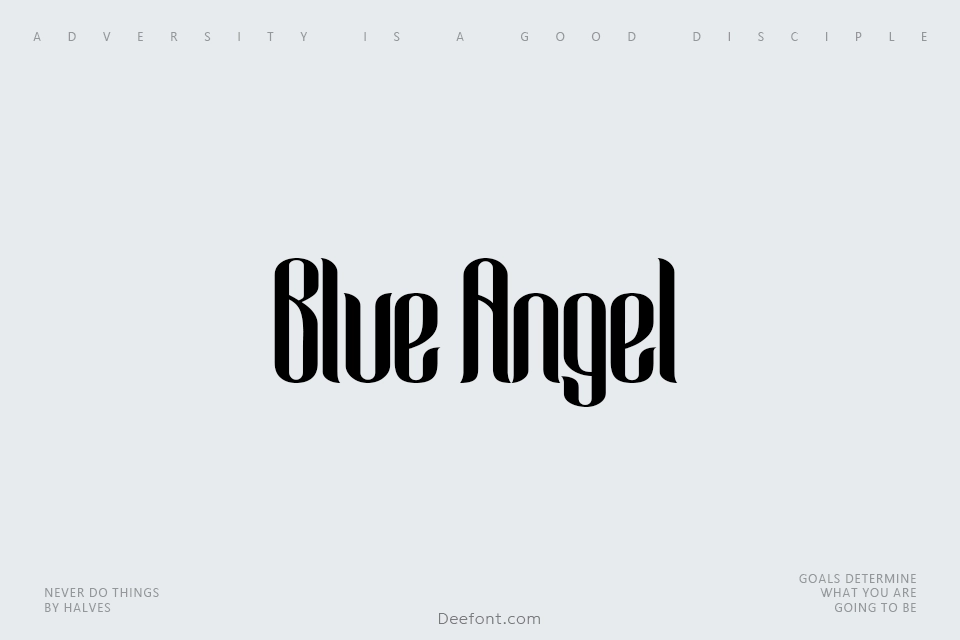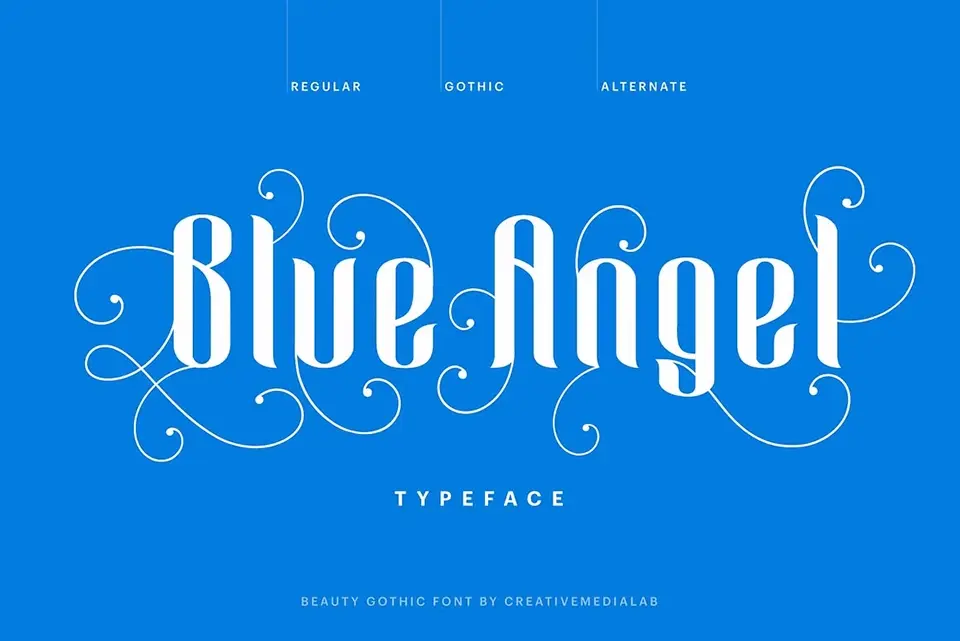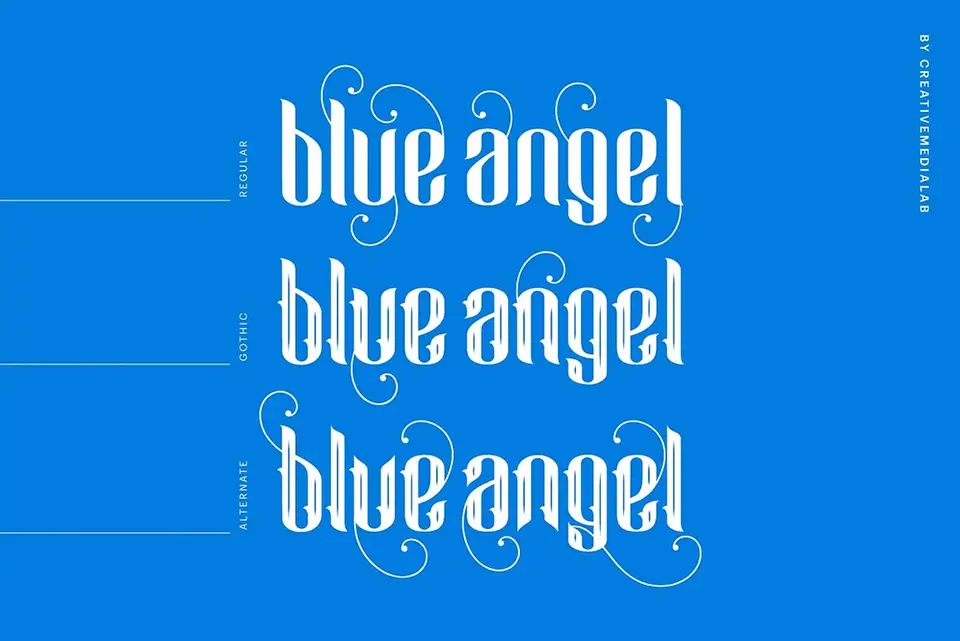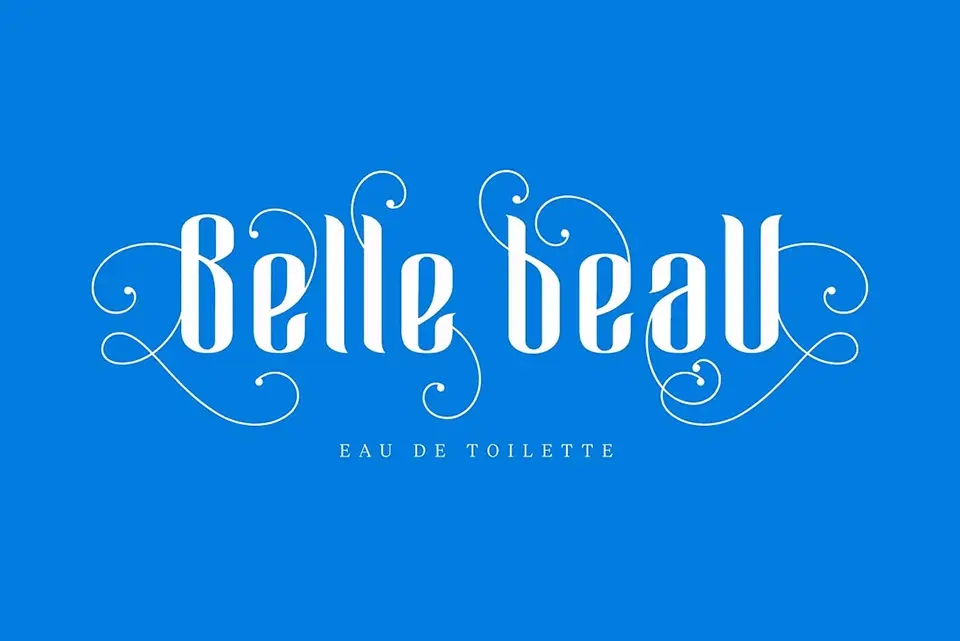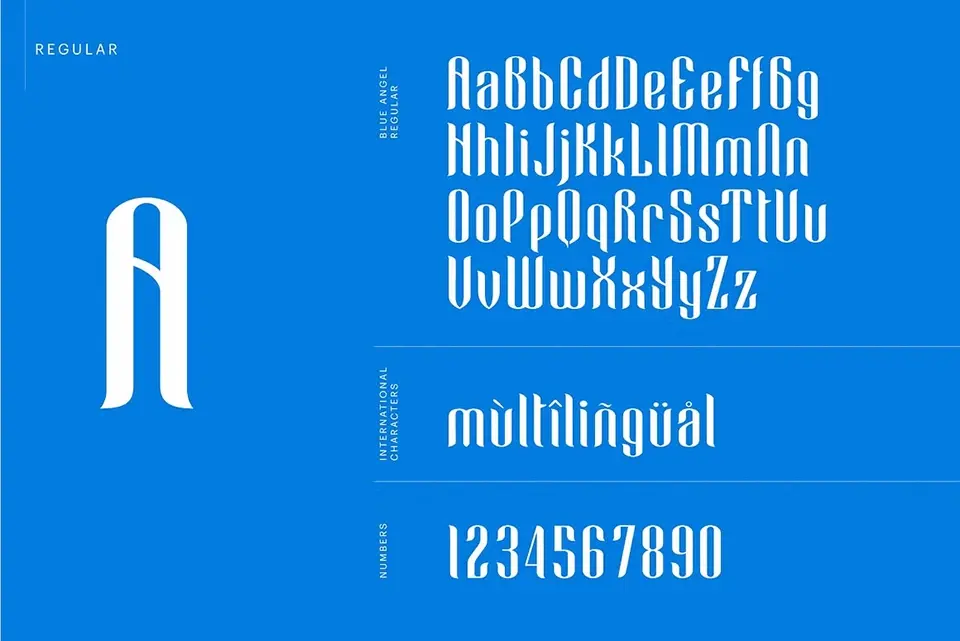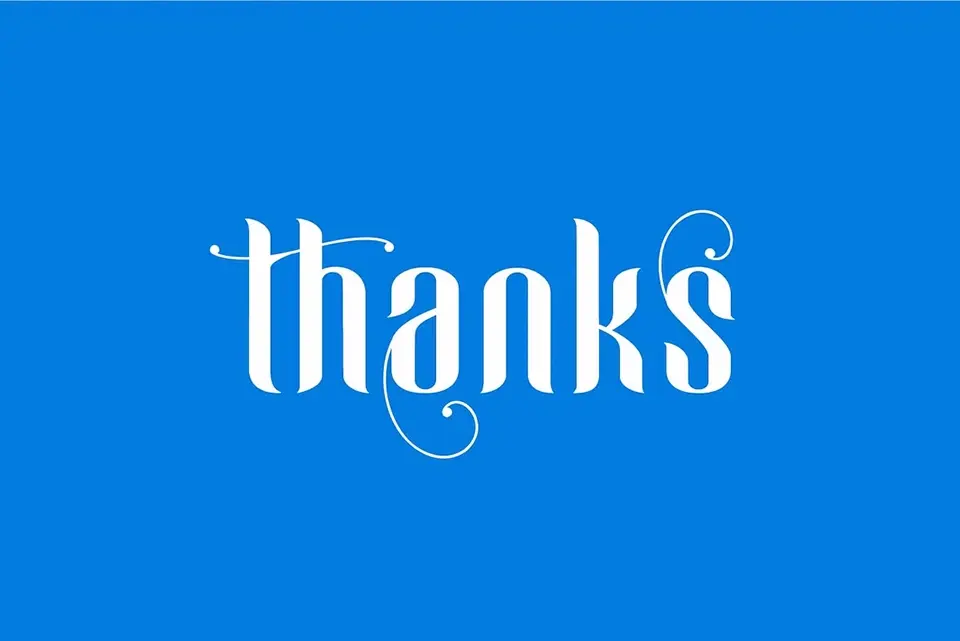
Blue Angel Font
Blue Angel is an elegant display typeface featuring three distinct styles plus ornamental elements, designed with delicate yet sophisticated curves. This beauty font combines Victorian aesthetics with modern design sensibilities, making it suitable for luxury branding, vintage packaging, poster design, and decorative typography. Each character incorporates multiple alternate letterforms, allowing designers to blend ornamental details seamlessly into creative projects. The font’s versatile nature extends from formal invitations to bold gothic applications, providing both refinement and dramatic visual impact for diverse design scenarios.